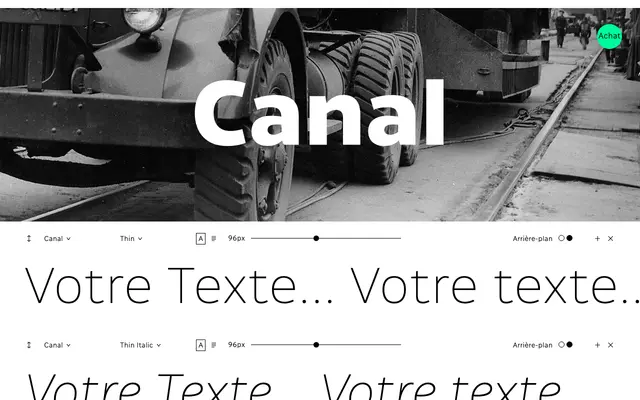
Canal
Coppers and Brasses · Étienne Aubert Bonn · 2015
Canal specimen from Coppers and Brasses
A utilitarian sans-serif by Étienne Aubert Bonn, drawn from the working-class graphic vernacular of late 19th and early 20th century North America.
Fourteen styles span seven weights from Thin to Black, each with a matching italic, making it a practical choice for both text and light display work. Open counters and a generous width give it a human warmth that keeps it from feeling purely functional. Extended Latin language support and comprehensive OpenType features make it a capable workhorse across a wide range of typesetting tasks.
Canal is a utilitarian sans-serif with open counters and a warm, humanist character drawn from North American working-class graphic culture of the late 19th and early 20th centuries, placing it firmly in the humanist sans tradition.